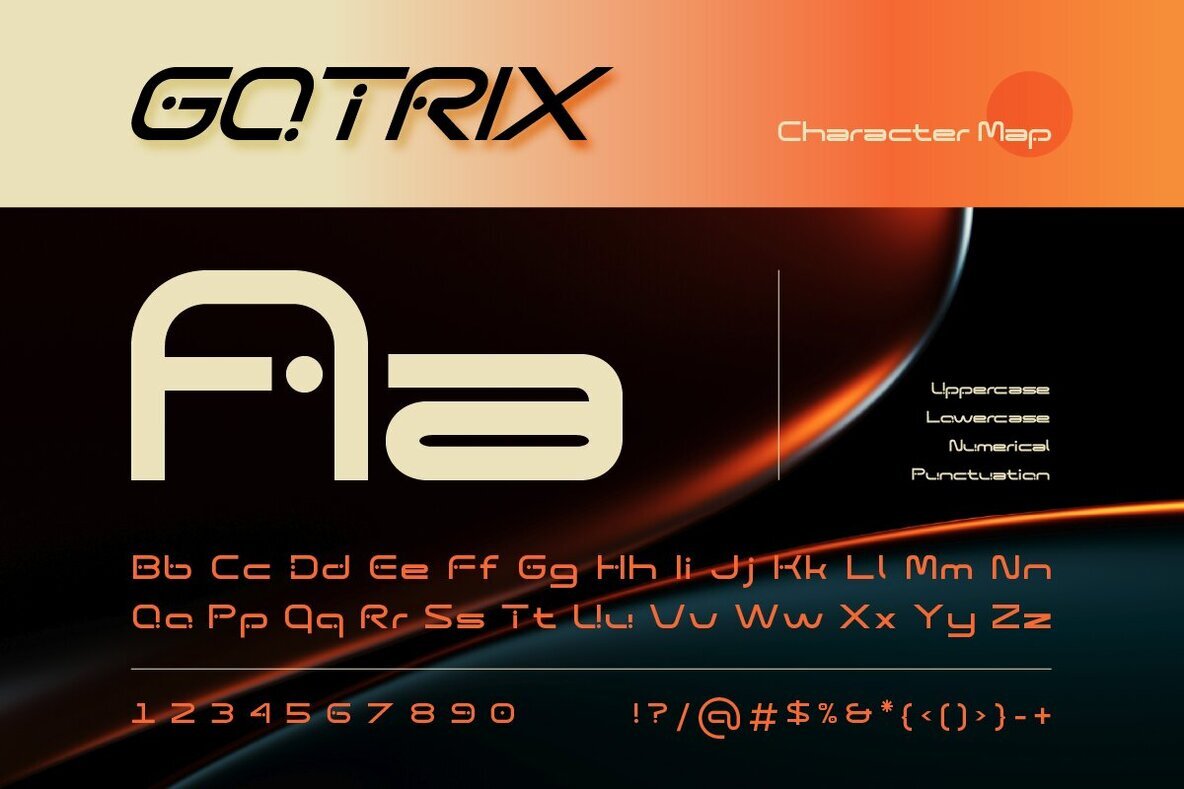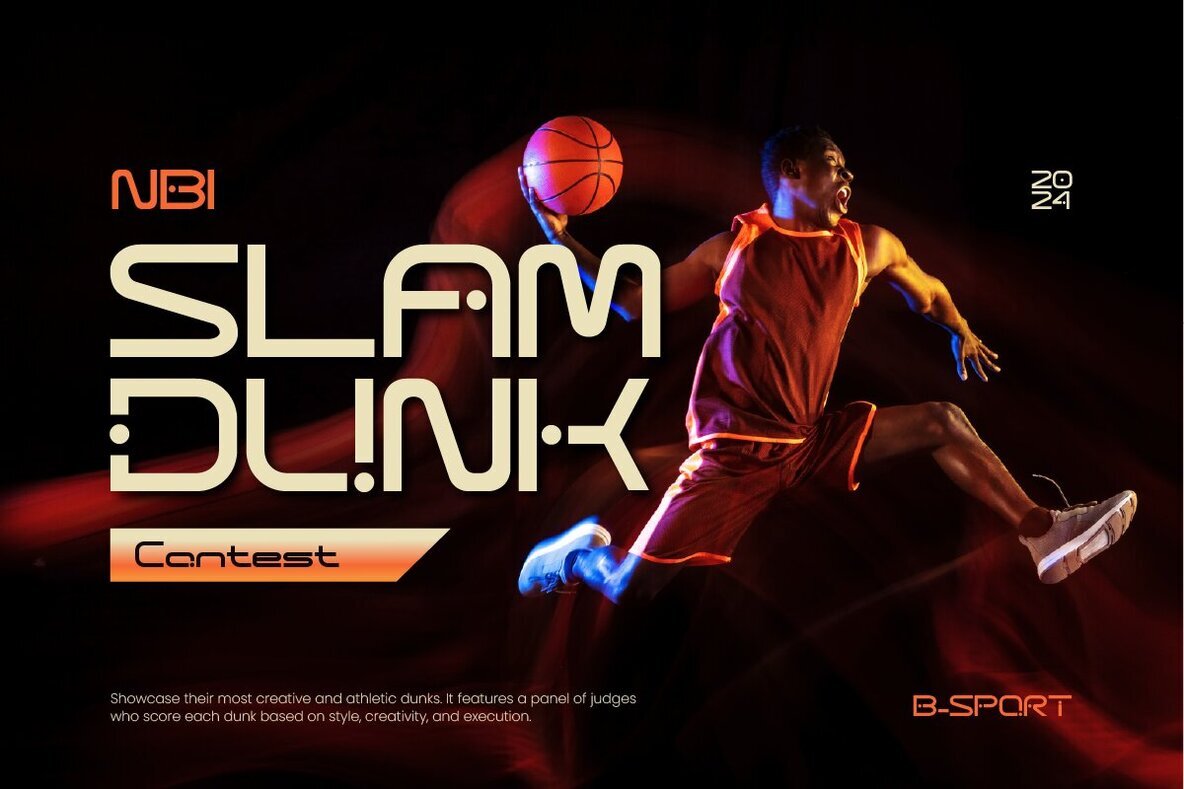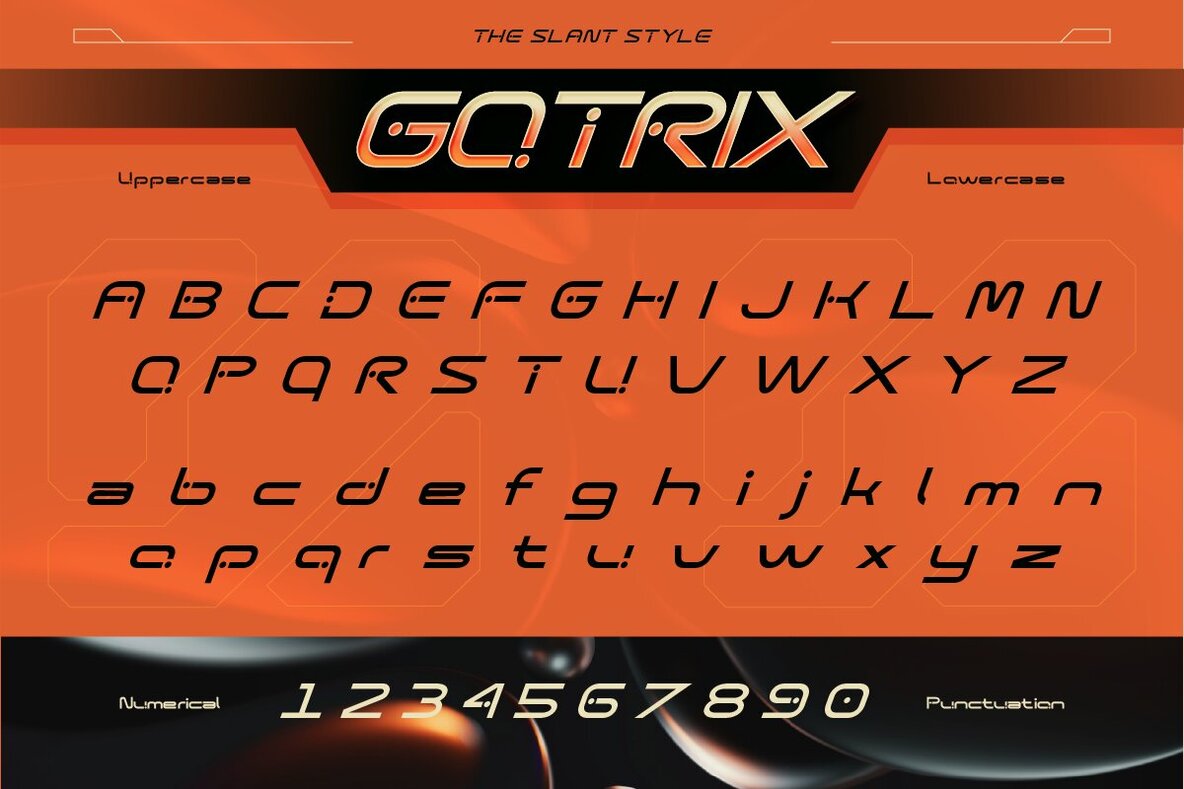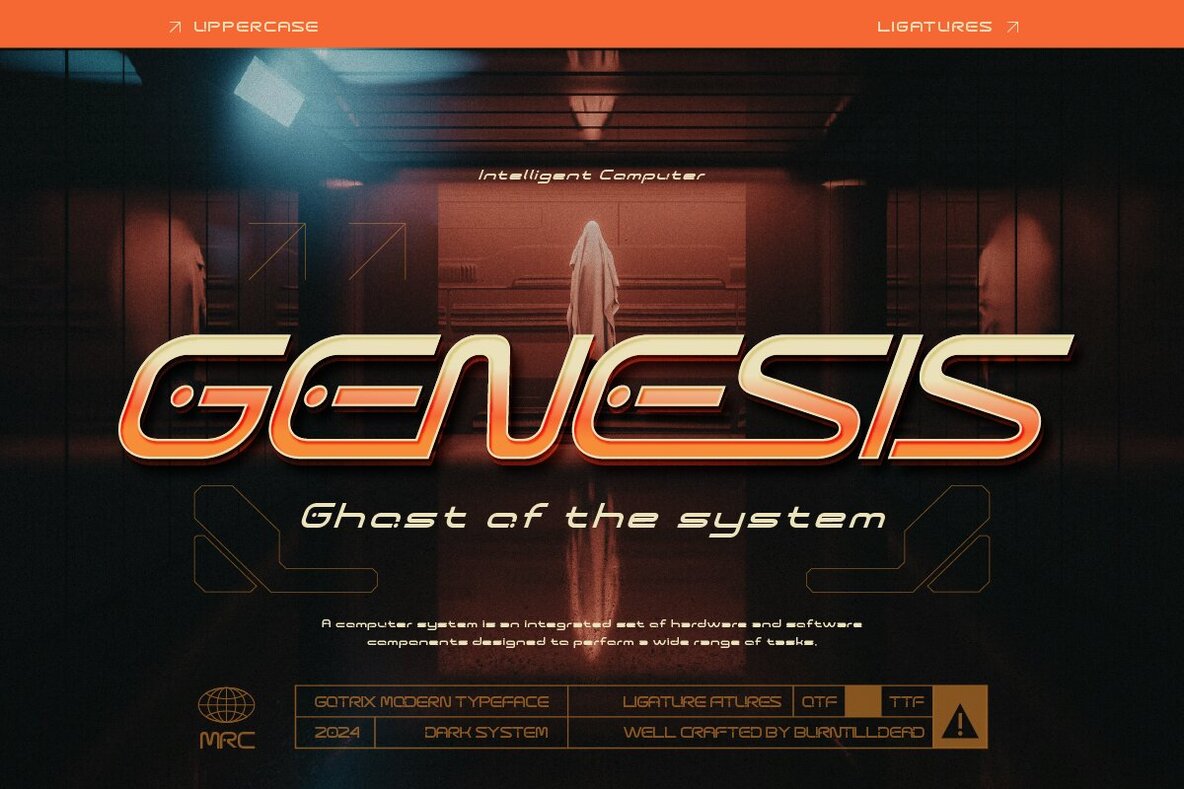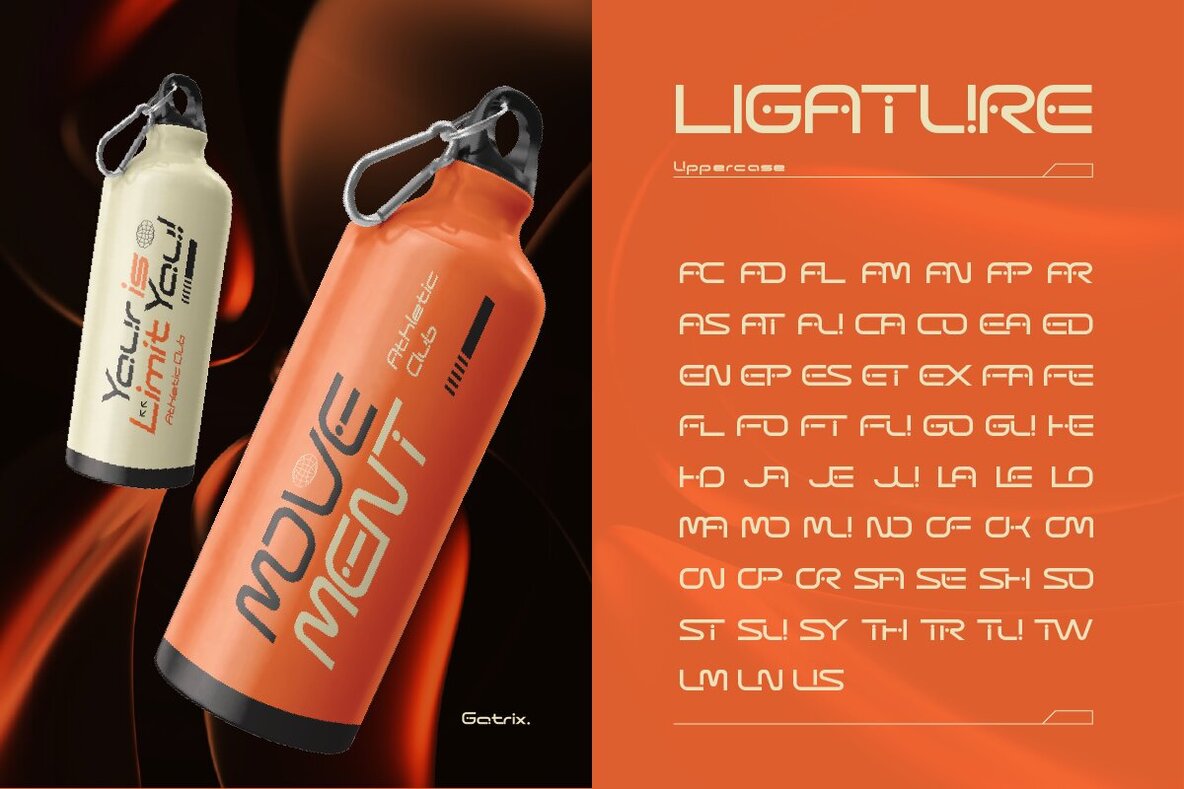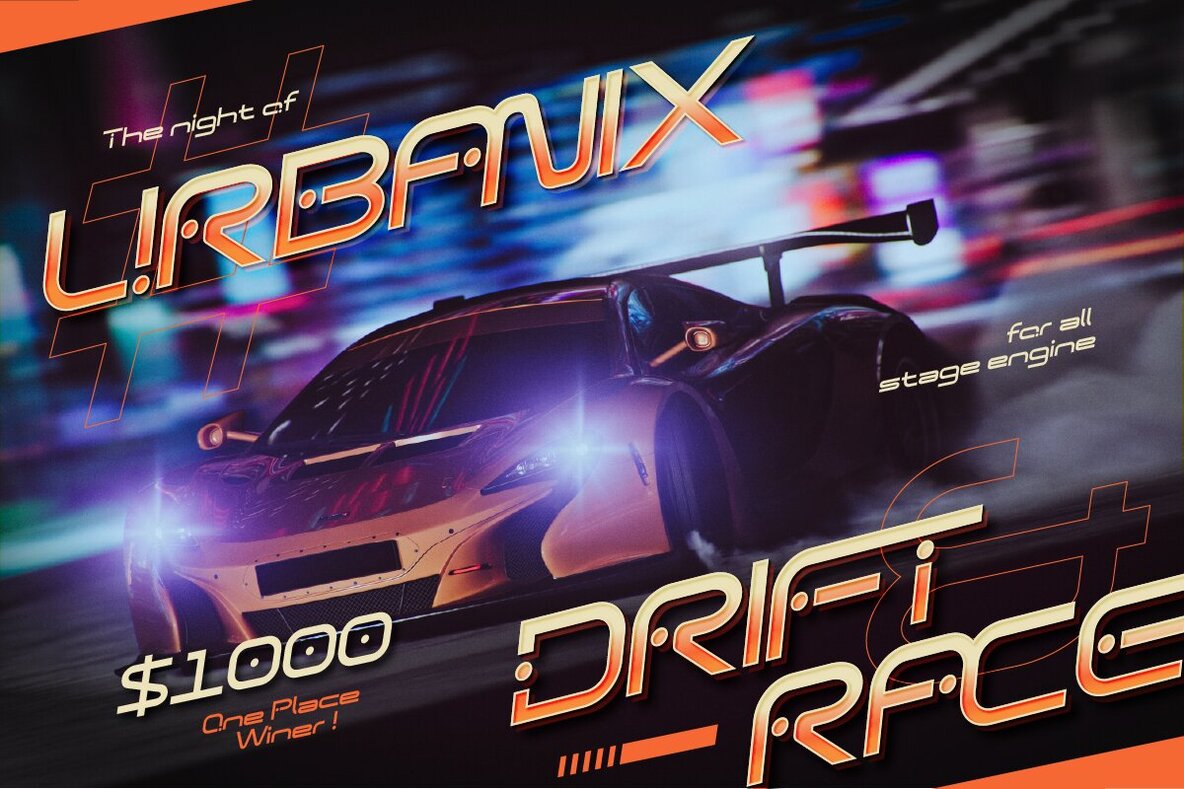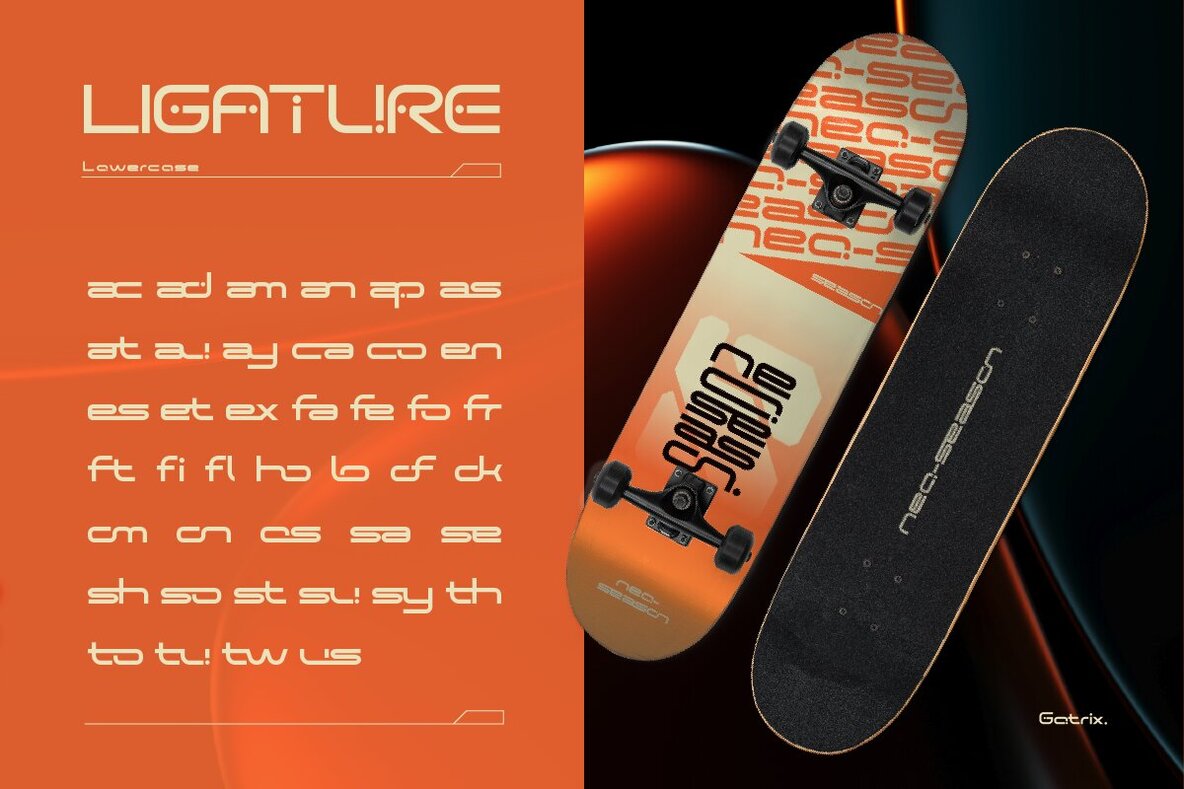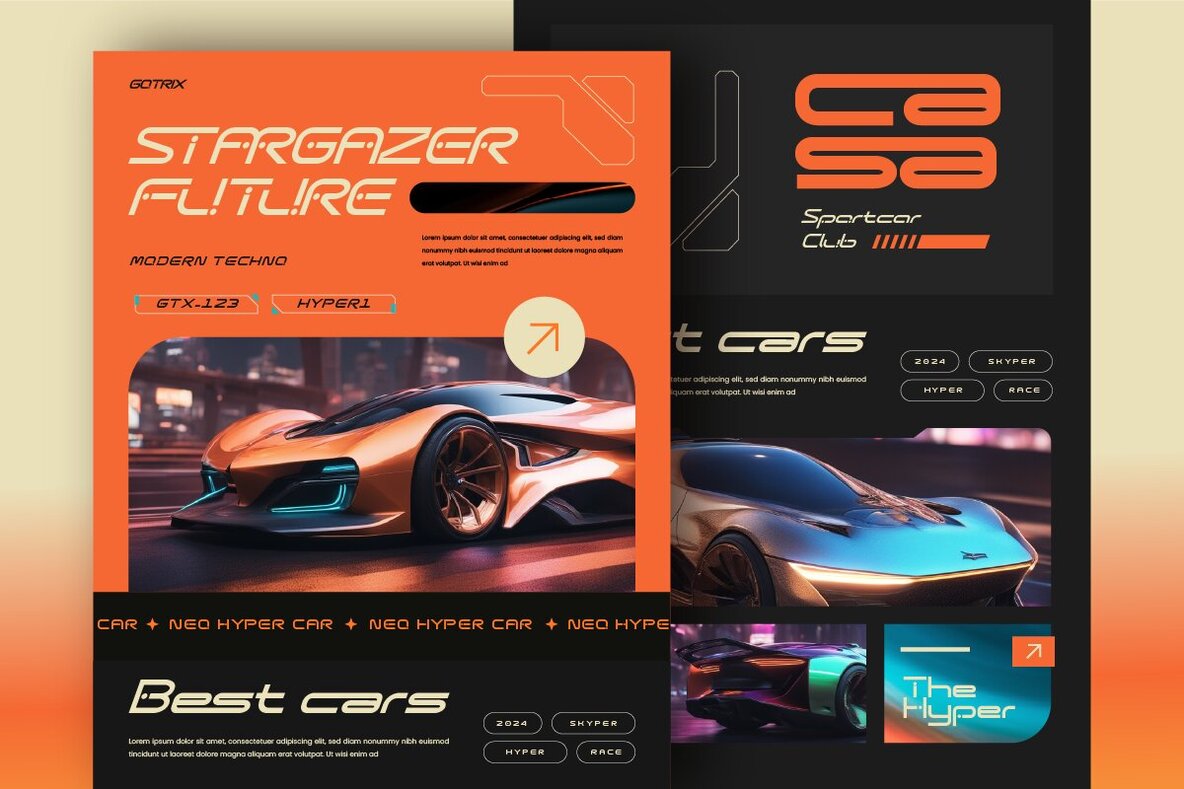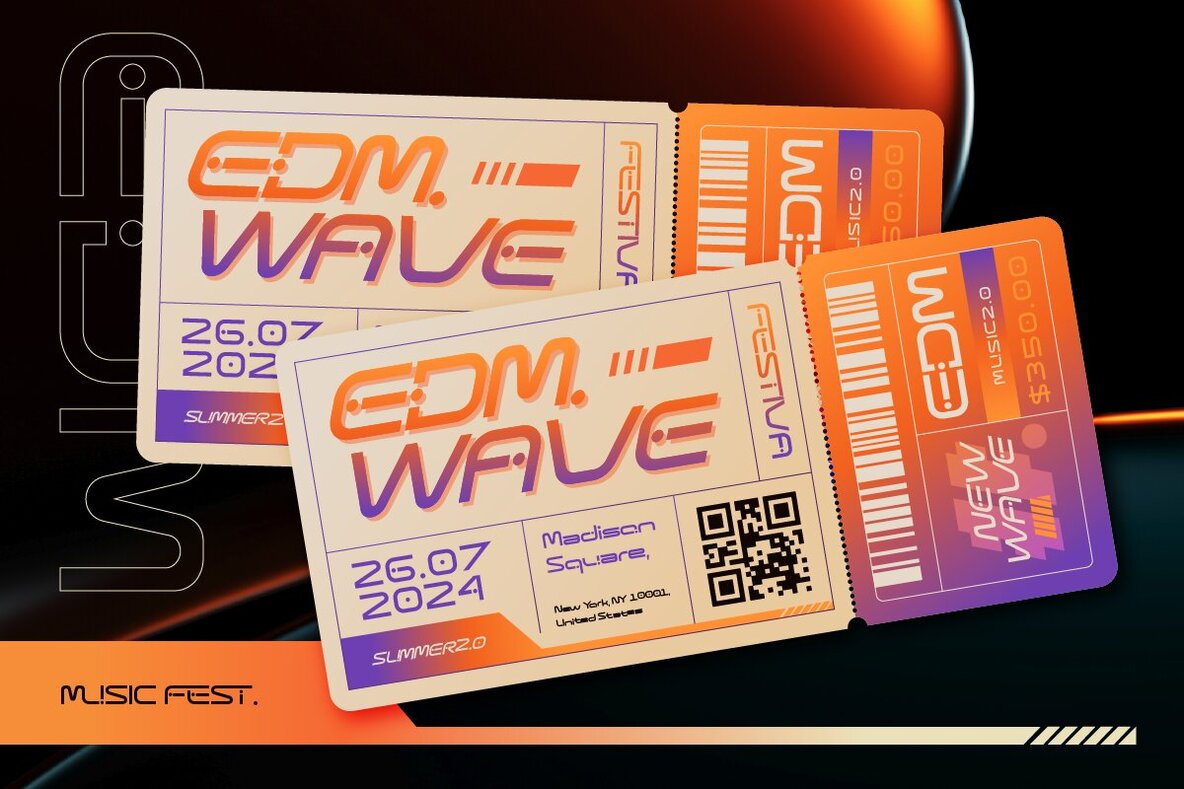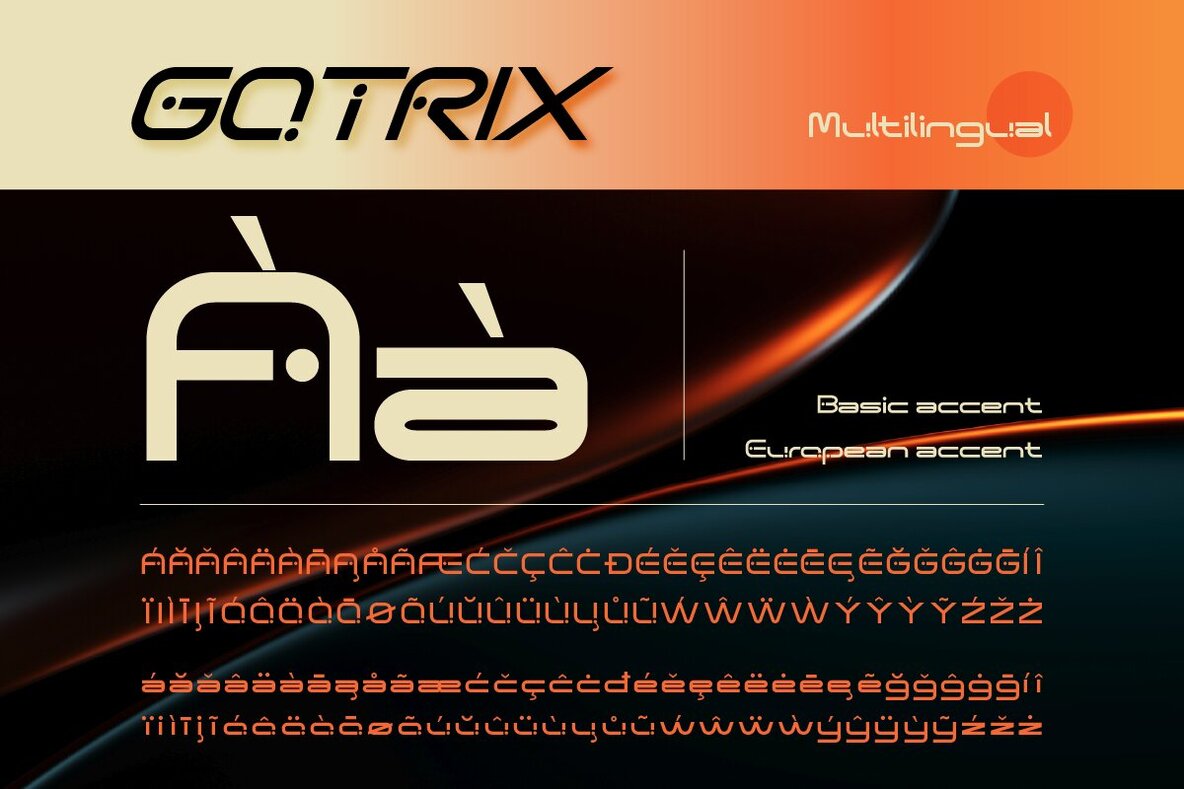
Gotrix Font
Gotrix Regular
Gotrix Outline
Gotrix Slant
Gotrix is a modern techno typeface that embodies futuristic design. Featuring cutting-edge geometric shapes and a high-tech vibe, it's an ideal choice for creating forward-looking visual identities. Use Gotrix for technology branding, sci-fi themes, digital interfaces, and innovative product designs to achieve a striking and contemporary appeal. This typeface is available in regular, outline, and slant styles.
Gotrix includes a complete A-Z set, numbers, punctuation marks, ligatures, and offers multilingual support. With its versatile styles, this typeface provides the flexibility you need to bring your visionary concepts to life. Step into the future of design with Gotrix and make a bold statement in your creative projects.